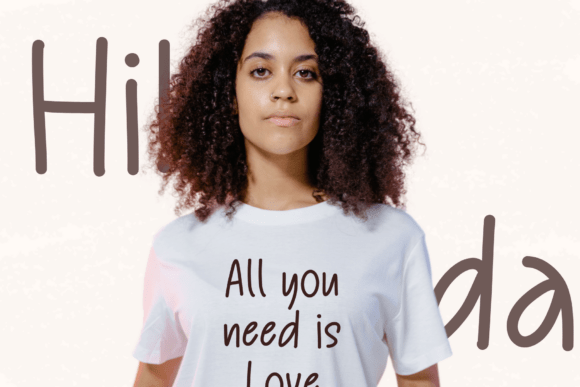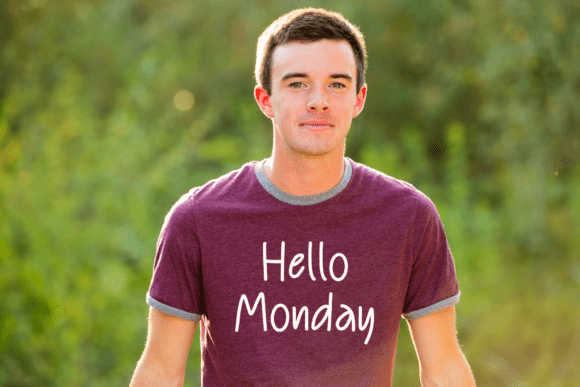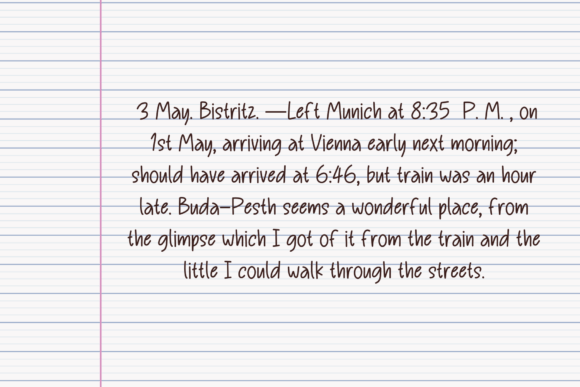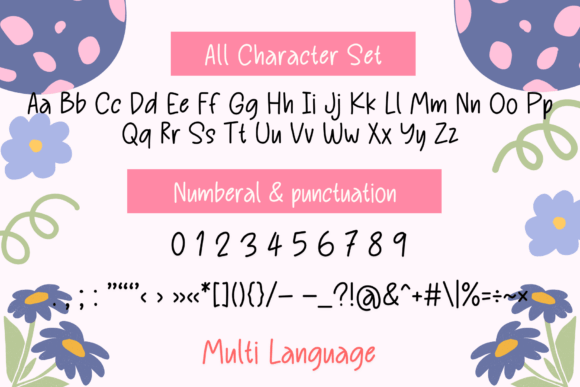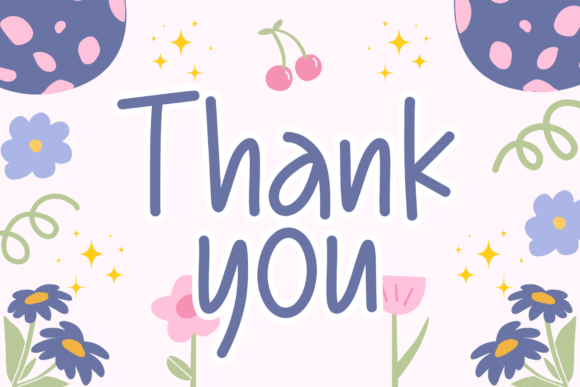
Introducing Clear Journal Font: The Perfect Handwritten Touch for Your Designs
In the world of design, fonts play a crucial role in conveying the tone and personality of a project. If you’re looking for a font that embodies playfulness and authenticity, look no further than Clear Journal Font. This beautiful handwritten font is perfect for adding a personal touch to your favorite projects, and its versatility makes it suitable for a wide range of applications.
What is Clear Journal Font?
Clear Journal Font is a carefully crafted handwritten font that exudes a sense of warmth and friendliness. Its unique and authentic style makes it an excellent choice for designers and crafters who want to add a personal touch to their work. Whether you’re creating a blog post, logo, branding materials, ads, invitations, greeting cards, planners, photo albums, decorations, or anything in between, Clear Journal Font is the perfect choice.
Key Features of Clear Journal Font
- Handwritten style: Clear Journal Font boasts a beautiful, handwritten style that adds a touch of personality to any design.
- Playful and authentic: This font embodies playfulness and authenticity, making it perfect for projects that require a friendly and approachable tone.
- Versatile: Clear Journal Font can be used for a wide range of applications, from blog posts and logos to invitations and decorations.
- Easily readable: The font is designed to be easily readable, making it perfect for body text, headings, and titles.
Clear Journal Font is a dream come true for designers and crafters who want to add a personal touch to their work. With this font, you can:
- Create stunning blog posts: Add a personal touch to your blog posts and make them stand out with Clear Journal Font.
- Design beautiful logos and branding materials: Use Clear Journal Font to create unique and memorable logos and branding materials that reflect your brand’s personality.
- Make eye-catching ads and invitations: Grab attention with Clear Journal Font’s playful and authentic style, perfect for ads, invitations, and greeting cards.
- Personalize planners and photo albums: Add a personal touch to planners, photo albums, and other creative projects with Clear Journal Font.
Tips for Using Clear Journal Font
To get the most out of Clear Journal Font, here are some tips to keep in mind:
- Experiment with font sizes: Clear Journal Font looks great in various font sizes, from small body text to large headings.
- Mix and match with other fonts: Combine Clear Journal Font with other fonts to create a unique and visually appealing design.
- Use it for titles and headings: Clear Journal Font is perfect for titles, headings, and subheadings, adding a touch of personality to your design.
In conclusion, Clear Journal Font is a versatile and beautiful handwritten font that embodies playfulness and authenticity. Its unique style makes it perfect for a wide range of applications, from blog posts and logos to invitations and decorations. Whether you’re a designer or crafter, Clear Journal Font is a must-have addition to your font collection. So why wait? Add Clear Journal Font to your designs today and enjoy the results!